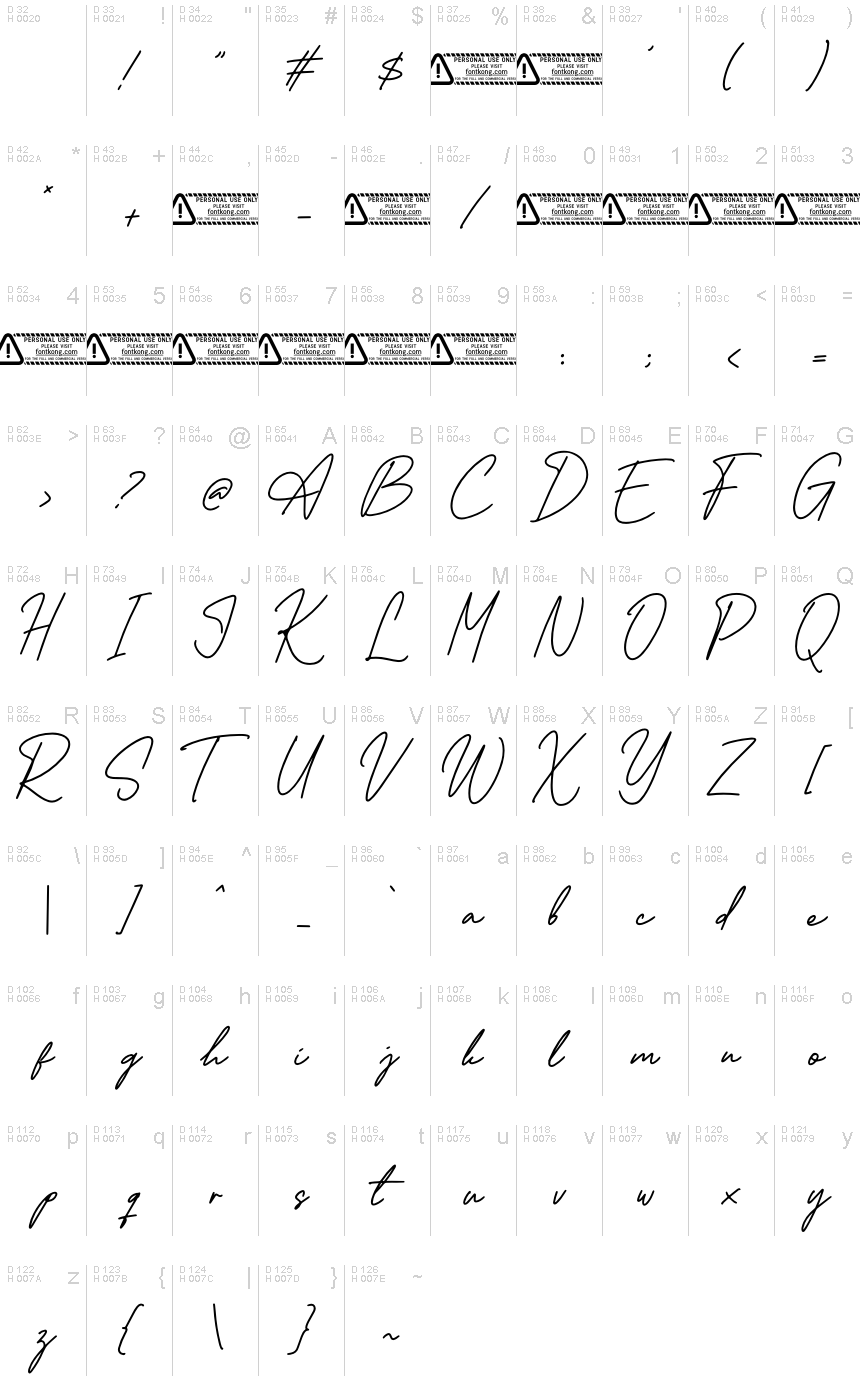
Alexanida font by Kong Font embodies the elegance of handwritten style with its light, graceful strokes. This free font, available for download, brings a personalized touch to any project, making it perfect for wedding invitations, personal branding, and artistic designs. Its fluid curves and natural flow captivate the eye, offering a sophisticated yet approachable aesthetic that stands out in both digital and print media.
Alexanida’s unique character adds warmth and creativity to your text while maintaining readability. Ideal for designers seeking an authentic handwritten look without compromising modern appeal.